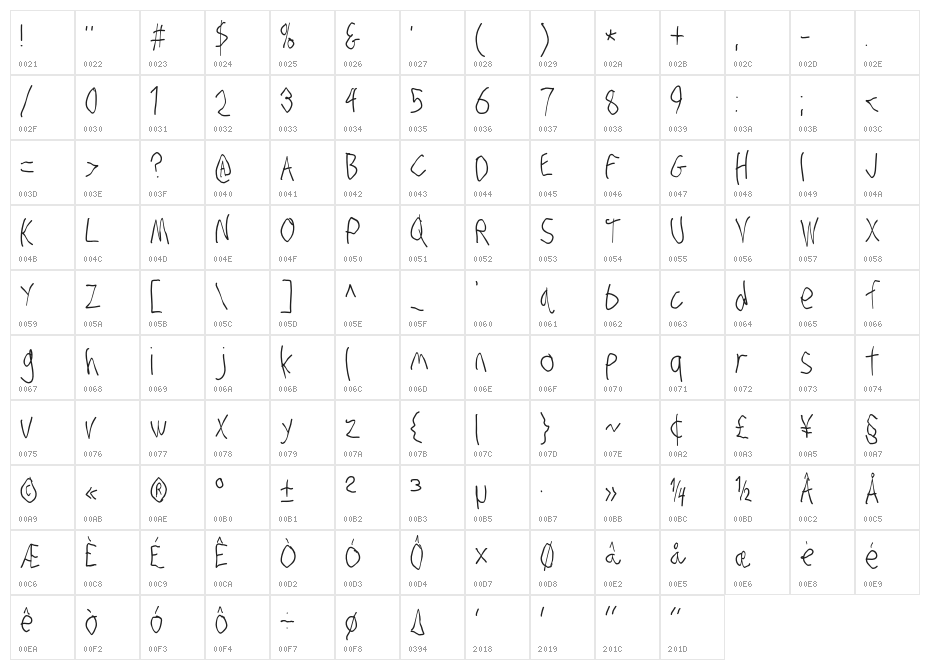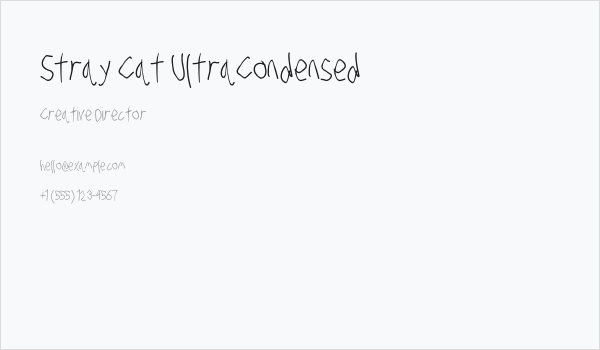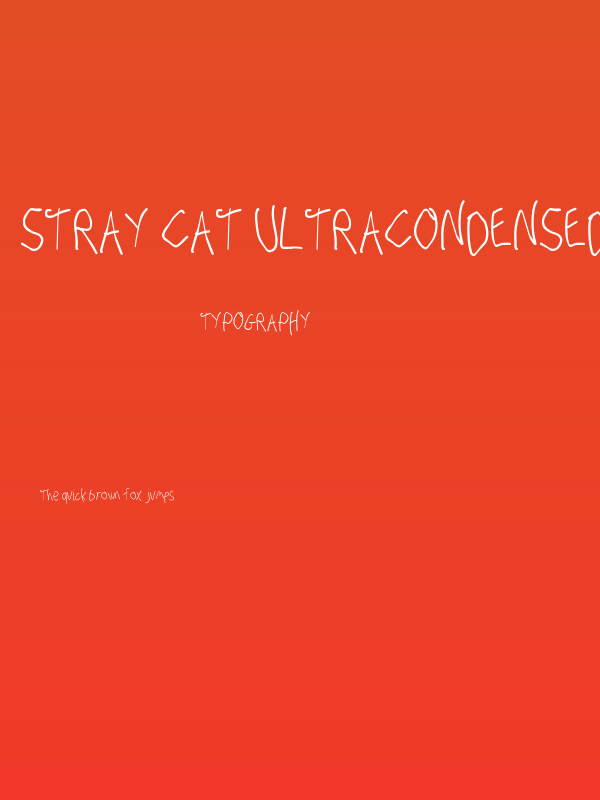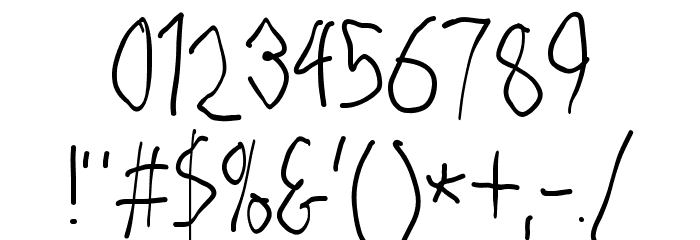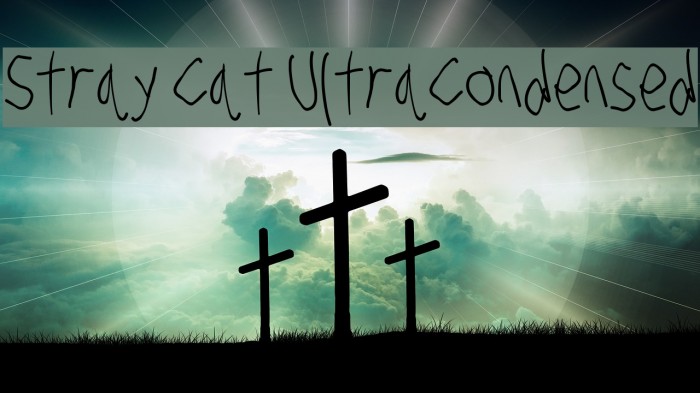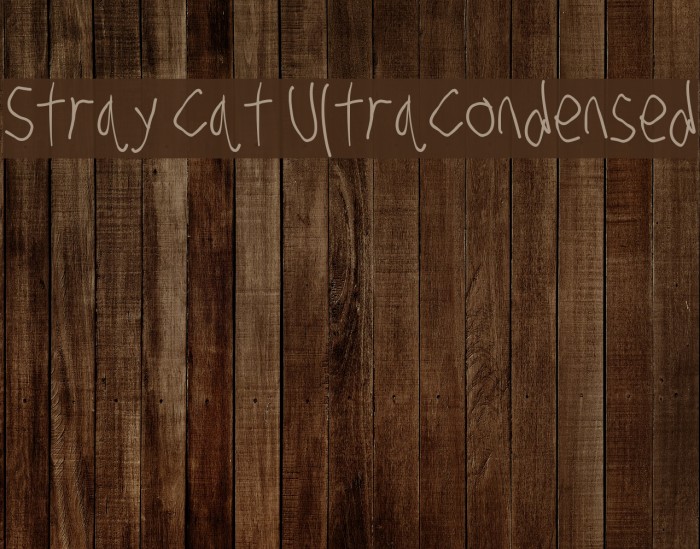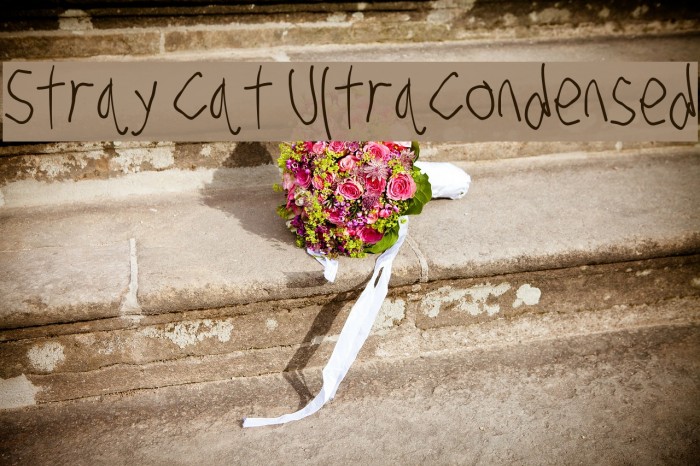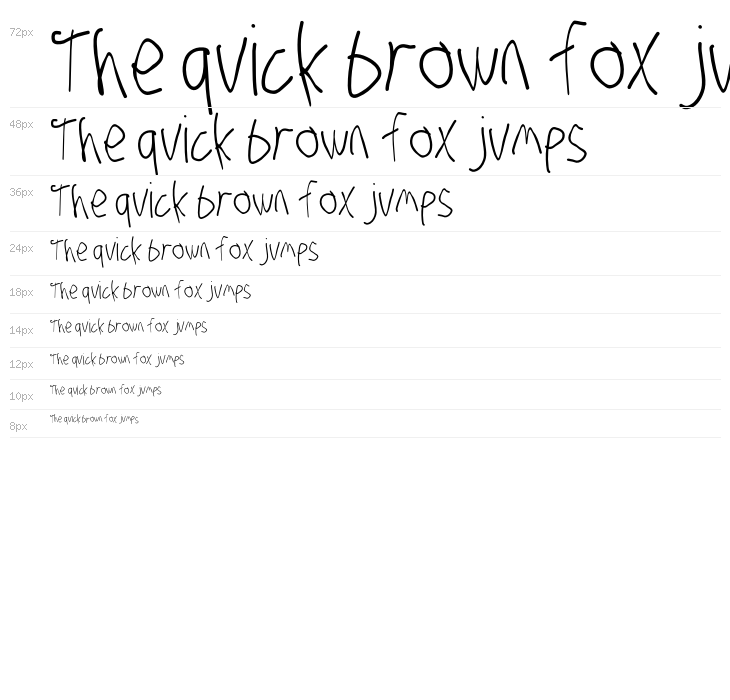
Stray Cat UltraCondensed Font
Stray Cat UltraCondensed Description
This font features a playful and casual handwritten style, characterized by its ultra-condensed letterforms. The strokes are uneven and slightly irregular, giving it a whimsical and informal appearance. The uppercase and lowercase letters maintain a consistent height, while the numerals and special characters follow the same playful aesthetic. The overall look is reminiscent of a quick, spontaneous jotting, making it ideal for projects that require a personal touch. Its unique style can add a sense of creativity and individuality to any design.
| Overall Style | Casual, Whimsical |
| Proposed Projects | Ideal for greeting cards, children's books, casual invitations, and creative branding. |